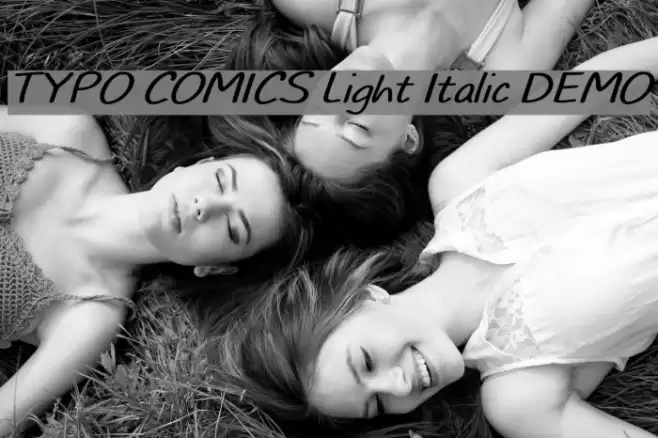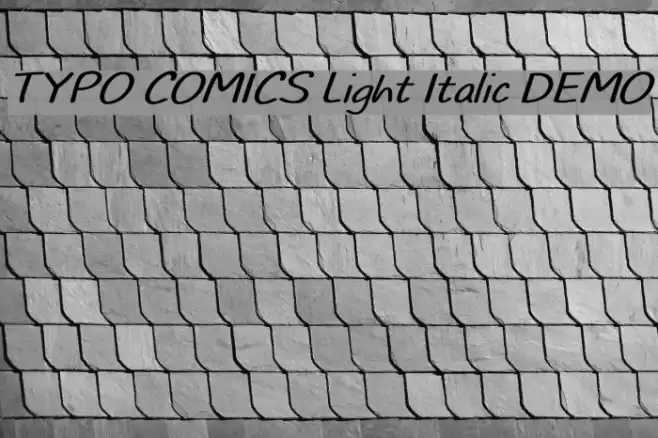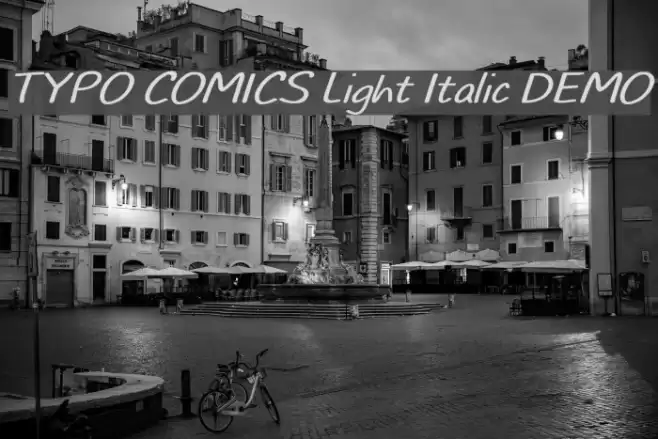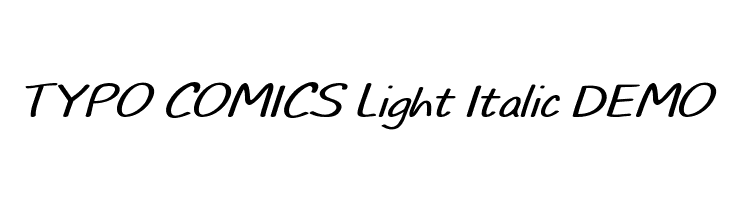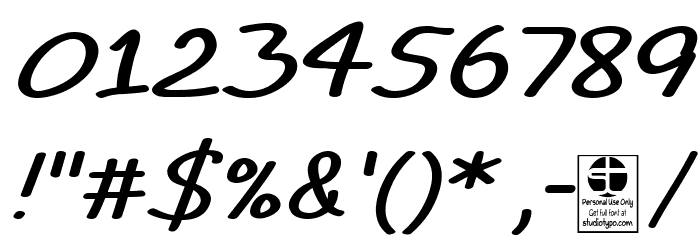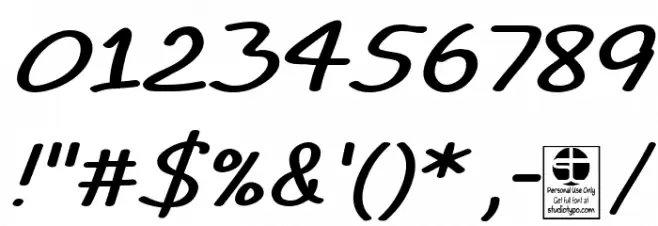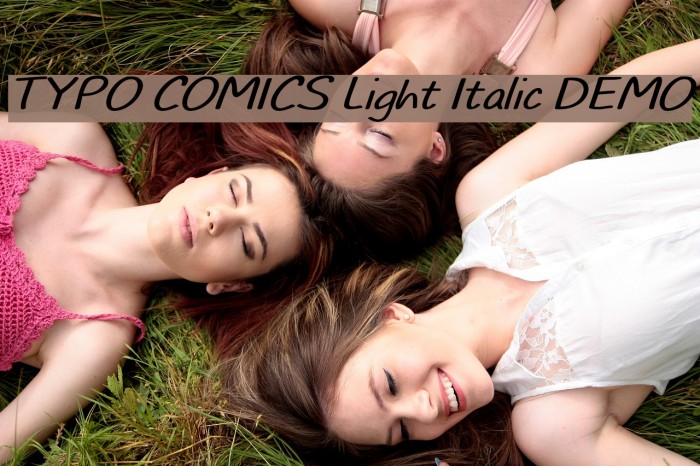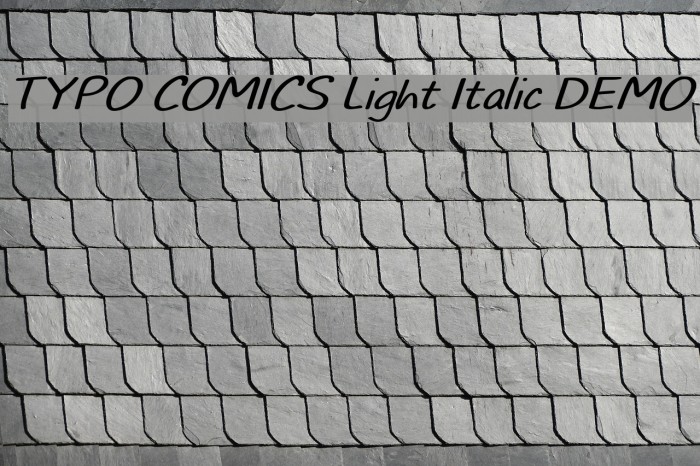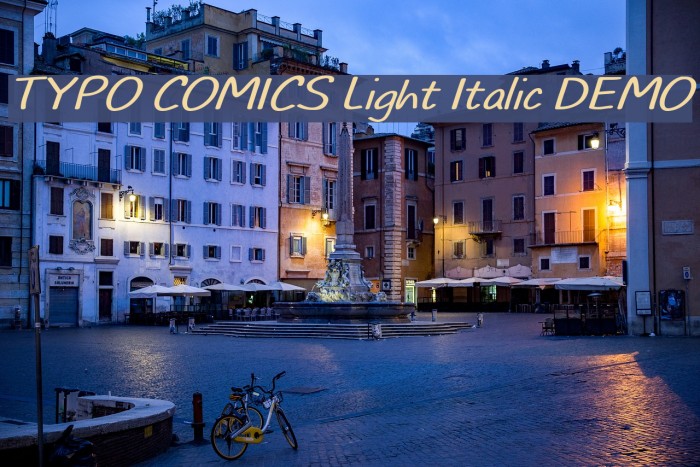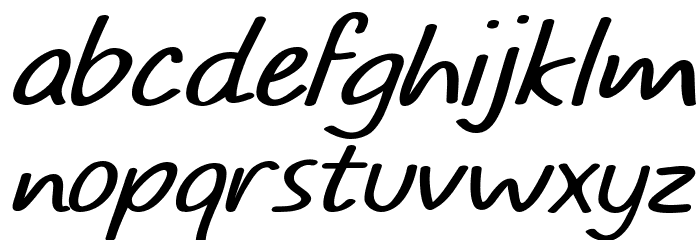
TYPO COMICS Light Italic DEMO Font
TYPO COMICS Light Italic DEMO Description
This font features a playful and casual handwritten style, characterized by its smooth, flowing curves and slightly slanted letters. The strokes are consistent in width, giving it a uniform appearance that is easy on the eyes. The uppercase and lowercase letters maintain a cohesive look, with rounded edges and a friendly demeanor. Numbers and special characters are designed to match the overall aesthetic, ensuring versatility across different uses. The font's light weight and italic style add a touch of elegance and informality, making it suitable for a variety of creative projects.
A playful, handwritten font with smooth curves and a light italic style from Comic fonts.
- Proposed Projects: Ideal for comic strips, children's books, casual invitations, and playful branding.
- Overall Style: Casual
- Use Case: Headlines, Logos, Informal Text